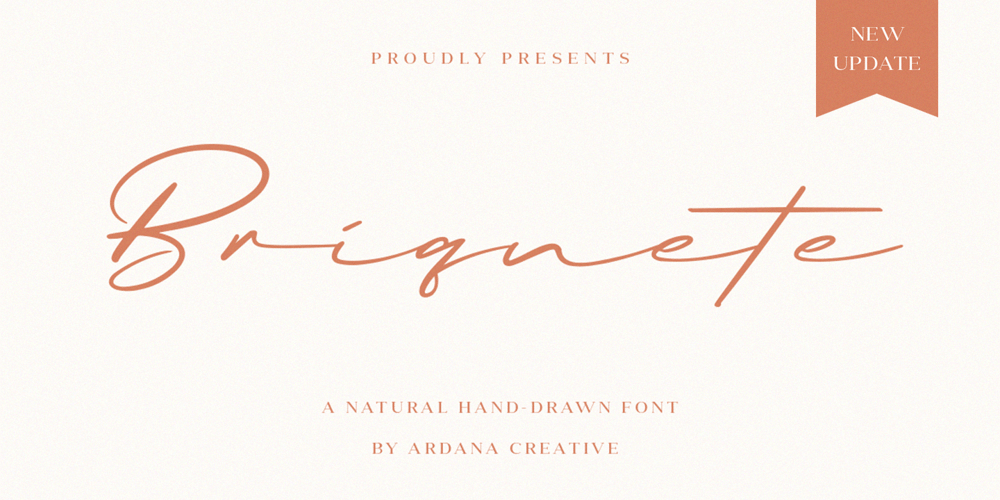
Briquete Signature Font Family was designed by Ferry Ardana Putra and published by Ferry Ardana Putra. Briquete Signature contains 1 styles and family package options. Briquete is natural handwritten script font manufactured by Ardana Creative, which support OpenType features and includes, numeral, punctuation, and it also supports multi-languages. This typeface is very catchy and natural because it was made using brush pen. This font is perfect for branding projects, wedding designs, advertisements, product packaging, product designs, label, photography, invitation, quotes, etc.Briquete features: A full set of upper & lowercase characters Numbers & punctuations Multilingual language support PUA Encoded Characters Briquete includes: Briquete.otf Briquete.ttf Briquete.woff For more information about accessing alternative, you can see this link: http://adobe.ly/1m1fn4YFeel free to give me a message if you have a problem or question.Thank you!